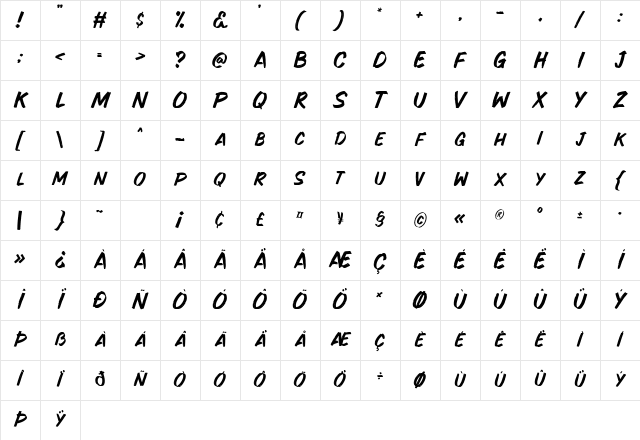
Star Brush - Demo Version Regular
Foundry: Nirmana Visual
Designer: Sigit Dwipa Raharjo
Design Context for Star Brush - Demo Version
Star Brush - Demo Version flows with the natural rhythm of handwritten lettering, making it ideal for designs that call for warmth and personal expression.